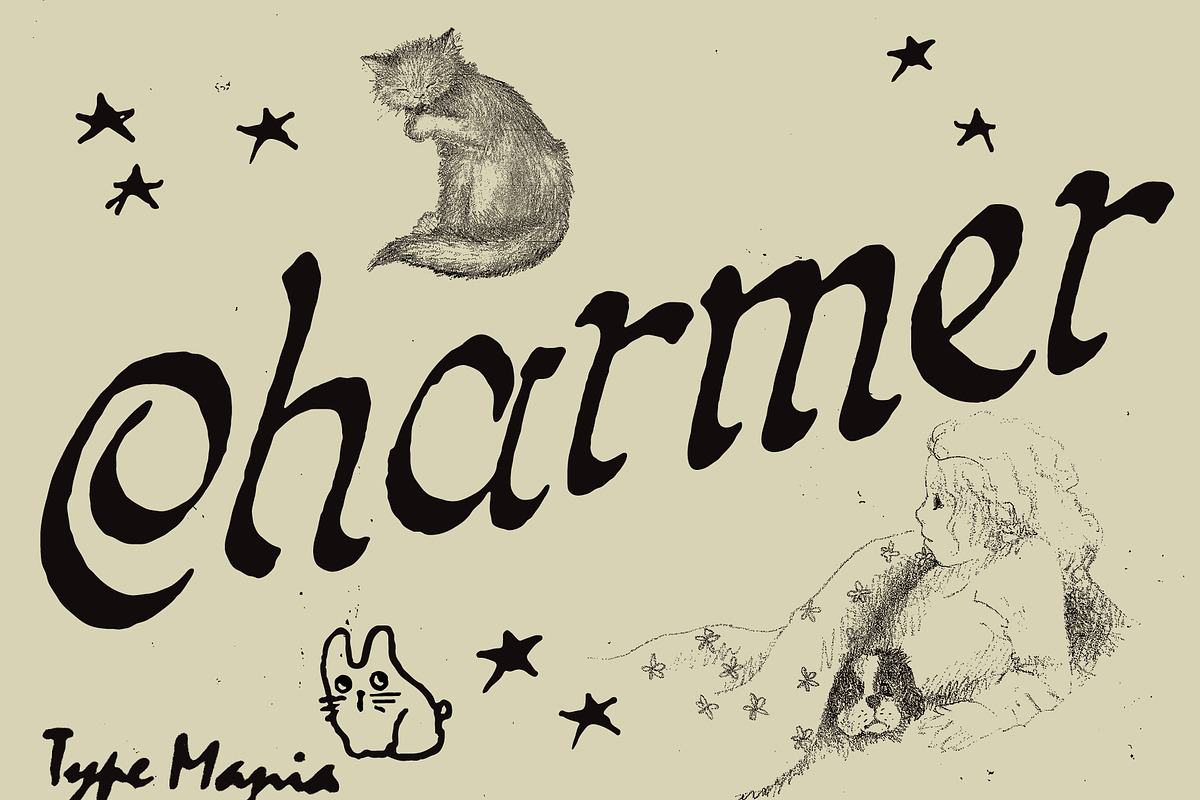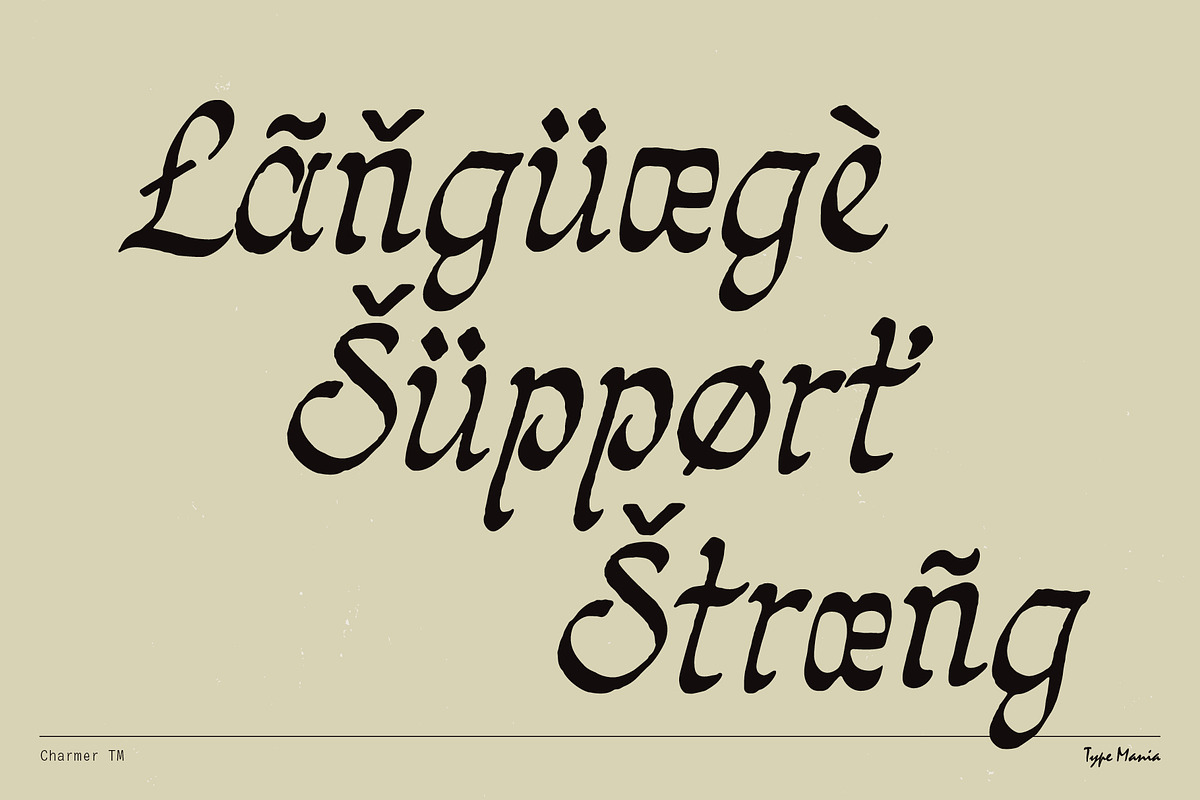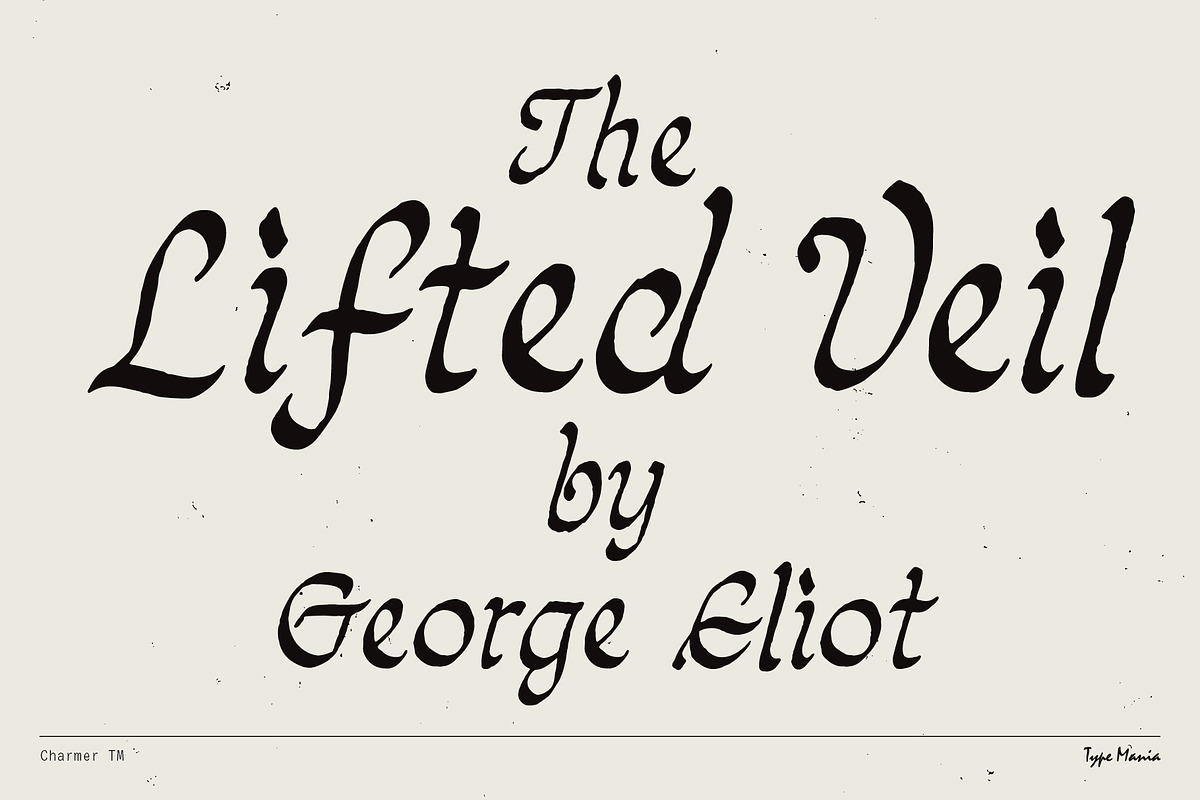
Charmer TM – Homebaked Calligraphy
Charmer TM is a homebaked calligraphic font with a personal feel. Good for your bedroom pop band just about to make it big...
Languages
- Basic Latin
- Western European
- Euro
- Central European
- Pan African Latin